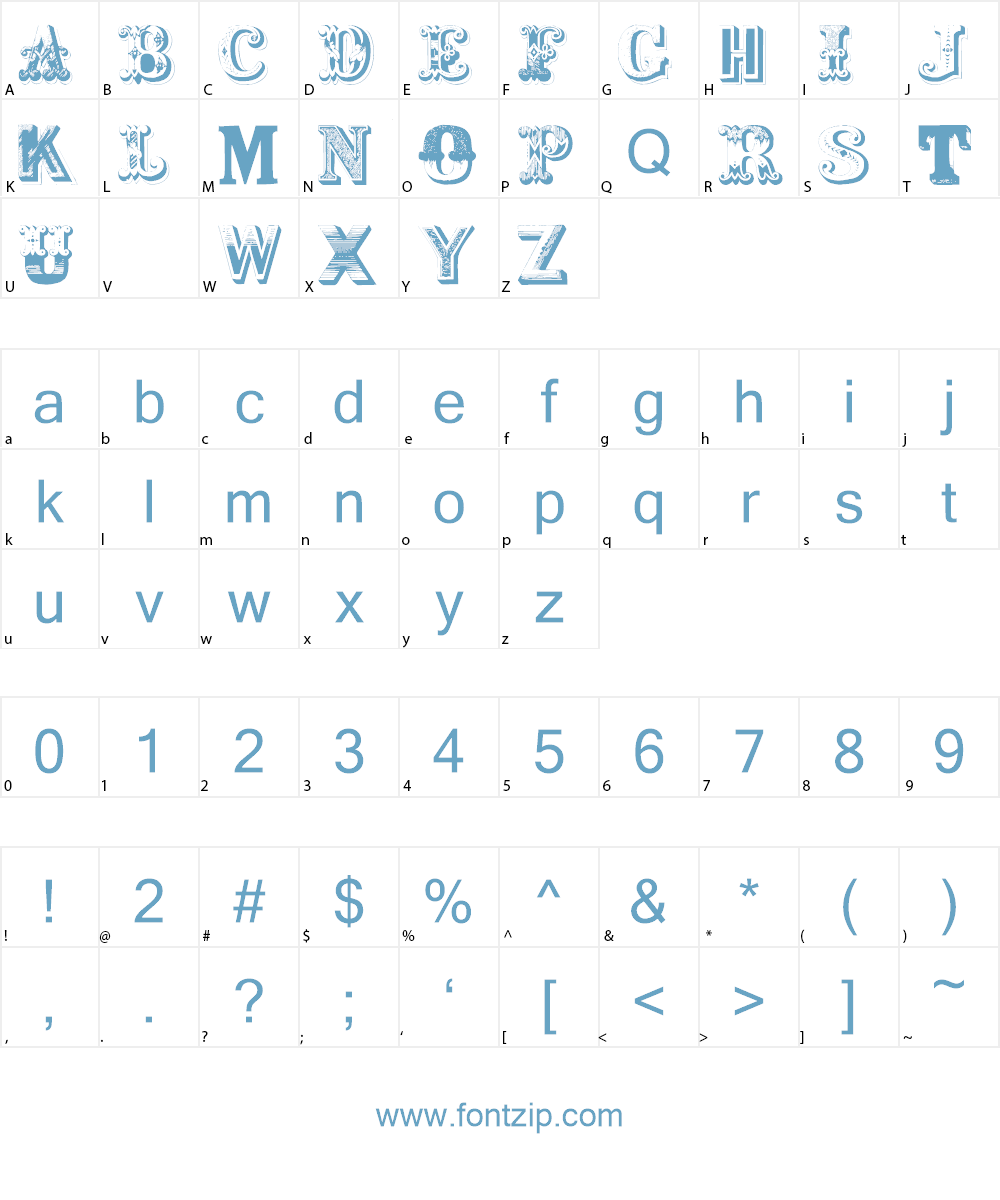
A combination of various 1900's fonts reprinted in '130 Alphabets & Other Signs, No. 1' (Shambhala, Boston, 1995), and converted into a font by myself. These upper case letters are chunky, large and square. The vectorisation of textures has caused interesting effects on the shaded letters. This font only took an hour to code. It is, however, missing a Q and a V (there were none available).